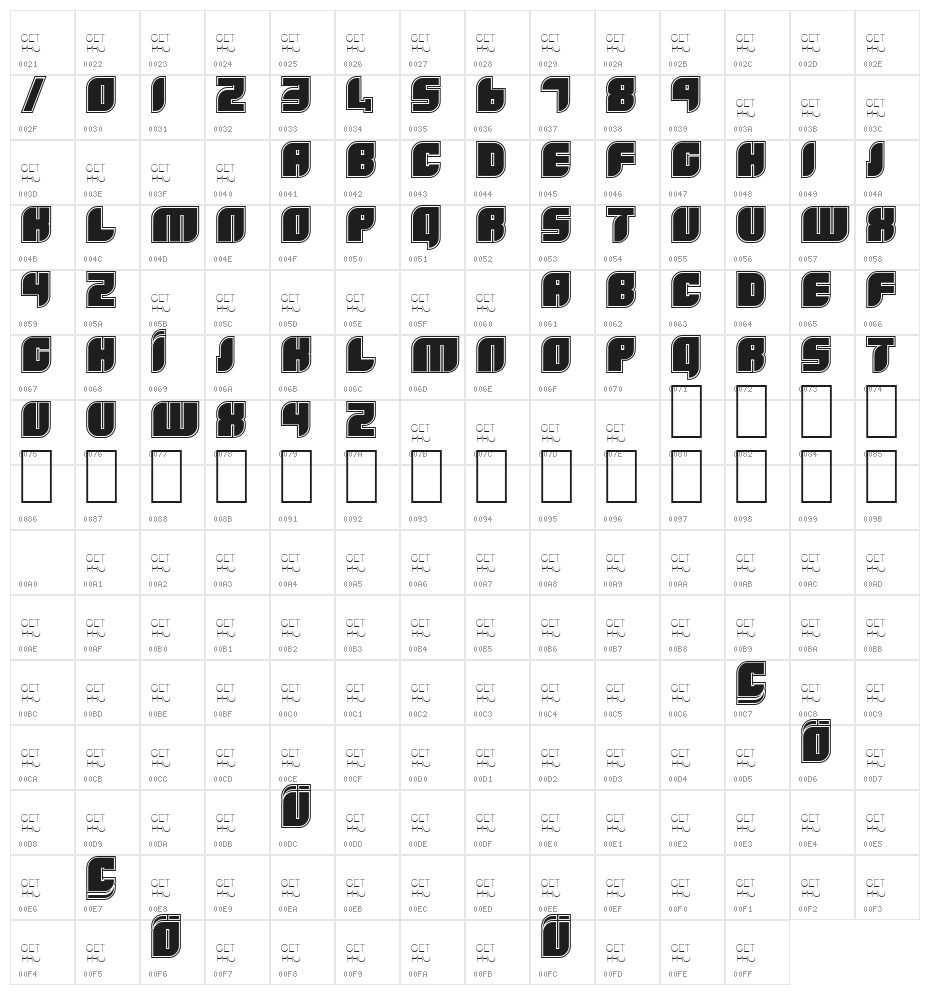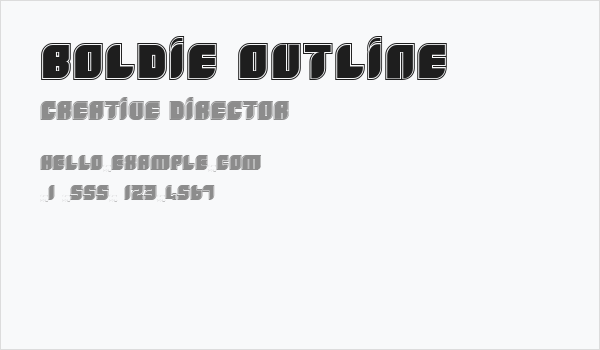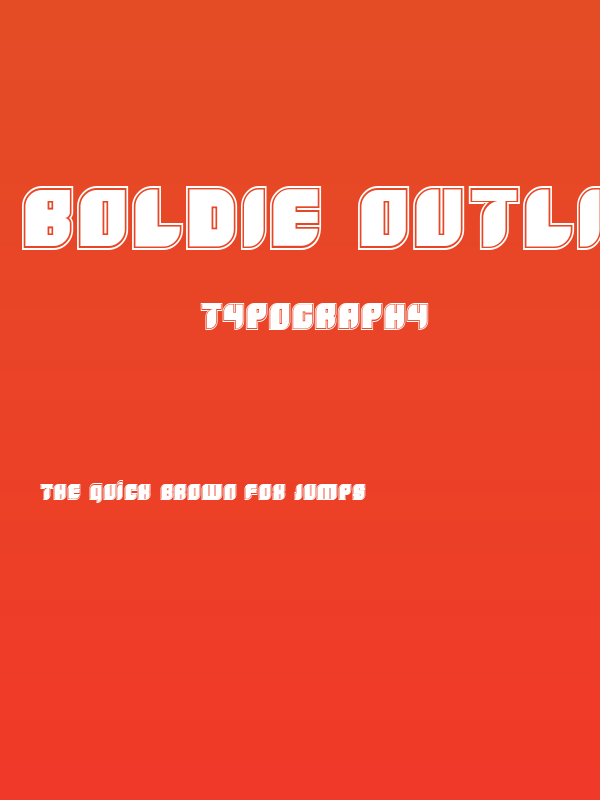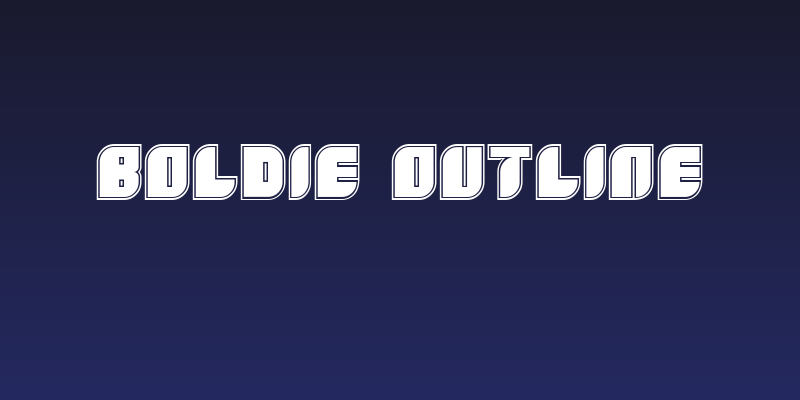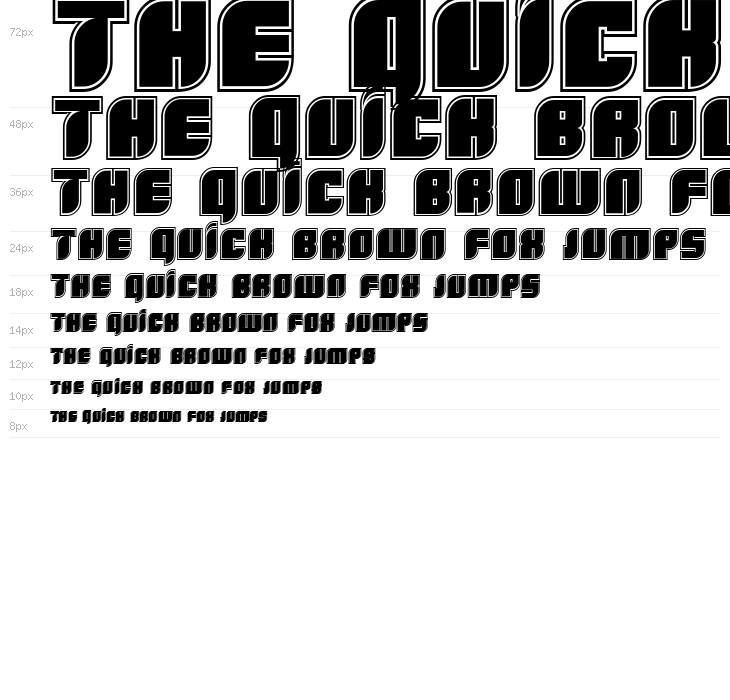
Boldie Outline Font
Boldie Outline Description
This font features a bold, geometric design with a distinct outline style that emphasizes each character's shape. The uppercase and lowercase letters are consistent in their blocky, angular form, creating a cohesive and modern appearance. The numbers and special characters follow the same design principles, ensuring uniformity across all glyphs. The font's outline effect adds a layer of depth, making it stand out in any design. Its structured and robust look is ideal for projects that require a strong visual impact.